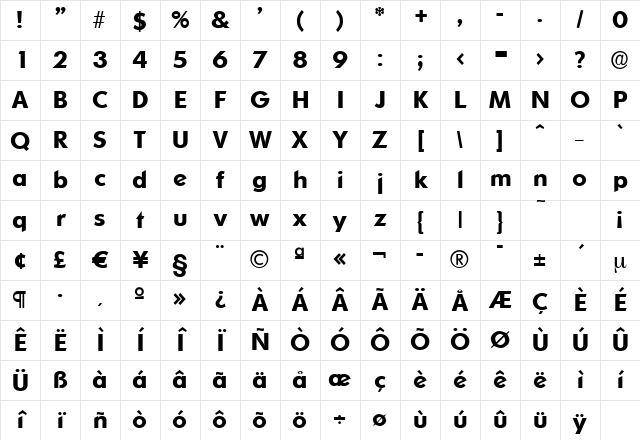
LiamBecker Bold
LiamBecker Family
Design Context for LiamBecker
LiamBecker is a composed and adaptable typeface that performs quietly and consistently across a wide range of design contexts. Its bold stroke weight gives it real presence on the page.
Pro Tip: Use LiamBecker in both headline and body roles to test its range before committing to a single application.